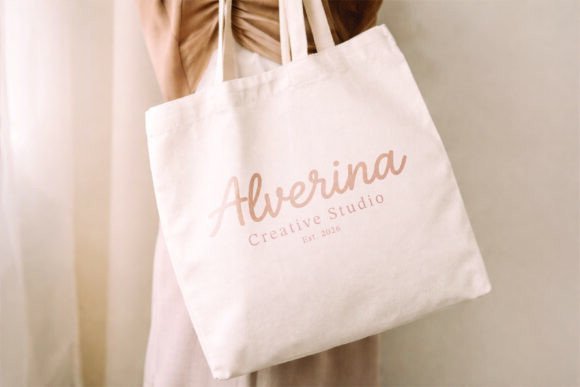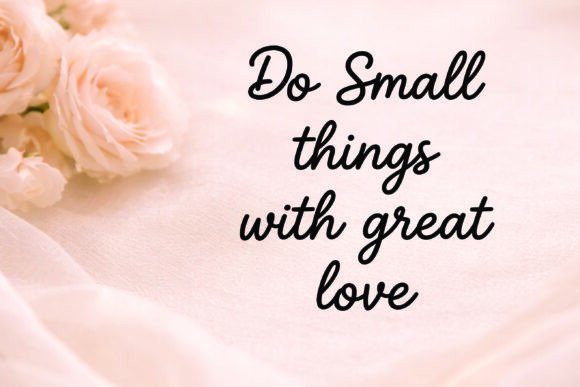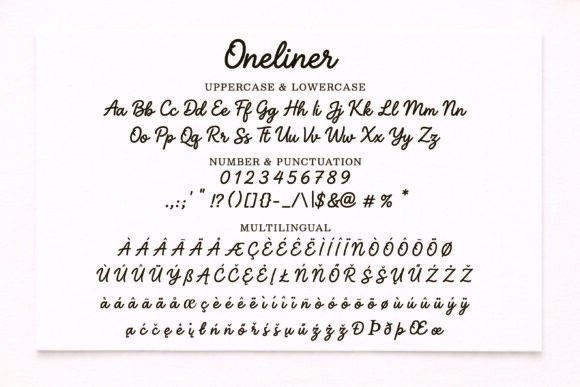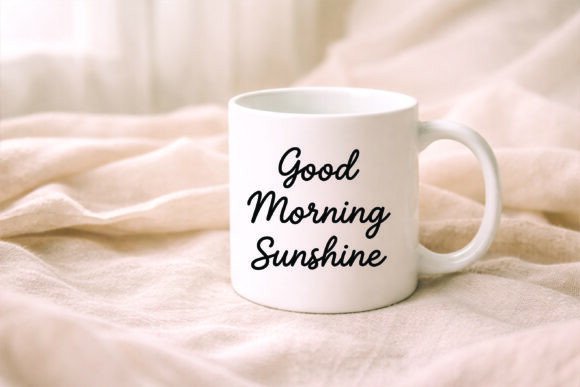
Oneliner Font
Oneliner is a modern and elegant signature script font with smooth flowing strokes and a natural handwritten feel. Designed with a clean monoline style, it captures the beauty of authentic handwriting while remaining highly readable and versatile. Perfect for branding, logos, wedding invitations, social media graphics, packaging, quotes, and editorial design, Oneliner adds a personal and sophisticated touch to any project. Whether you’re creating stylish branding or elegant stationery, this font brings effortless charm and modern simplicity to your designs.